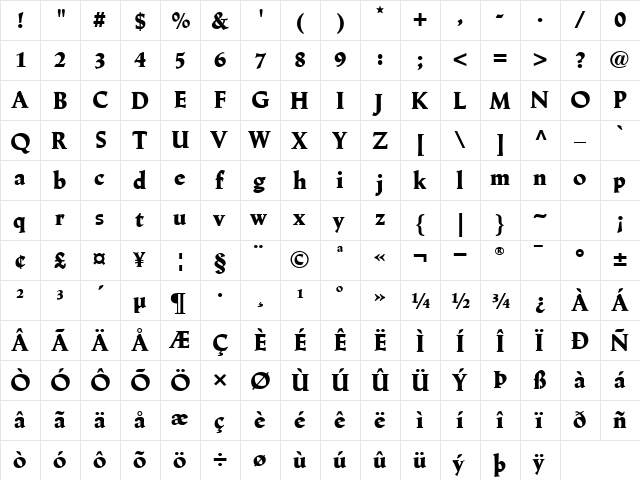
LinotypeTrajanus Black
Design Context for LinotypeTrajanus Typeface
LinotypeTrajanus takes a measured approach to typography — its balanced proportions and neutral character make it a reliable workhorse for both digital and print work.